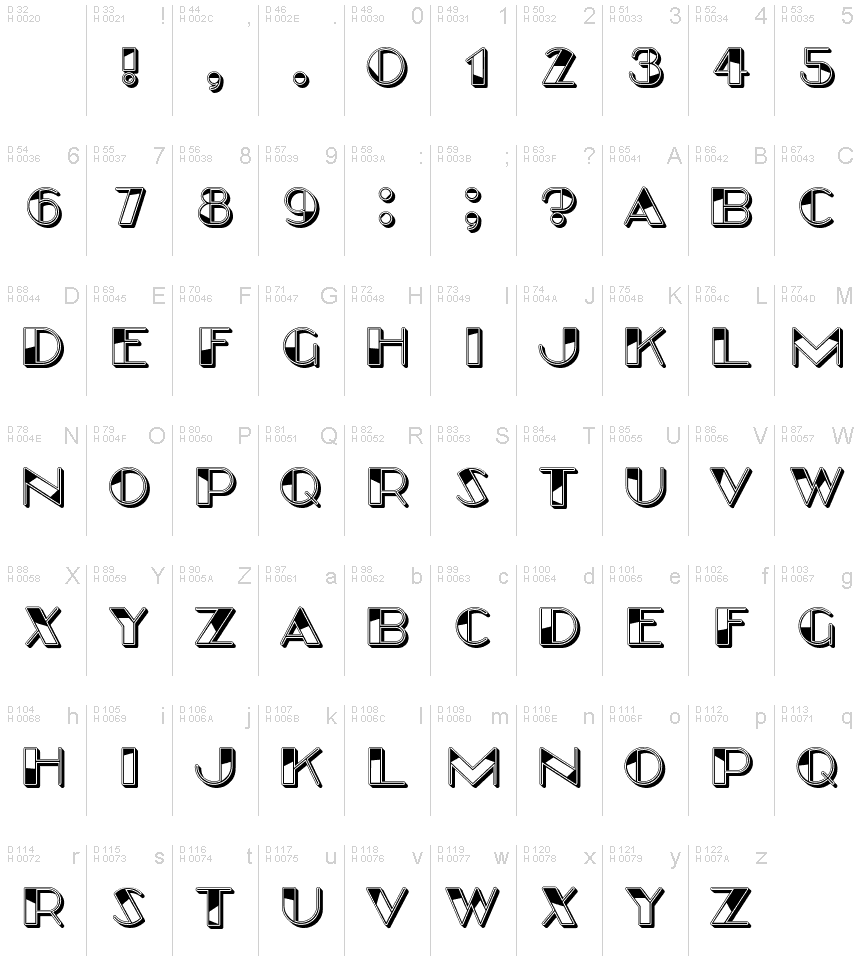
In Resin Hollow Regular
In Resin Hollow font is an extruded retro typeface designed by Vladimir Nikolic.
It comes in Regular, Filled, Hollow, Light and Light Filled variants!